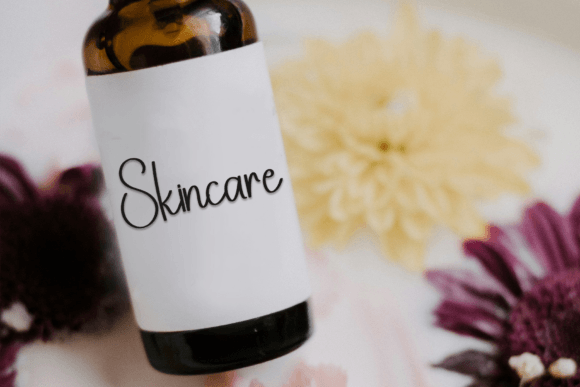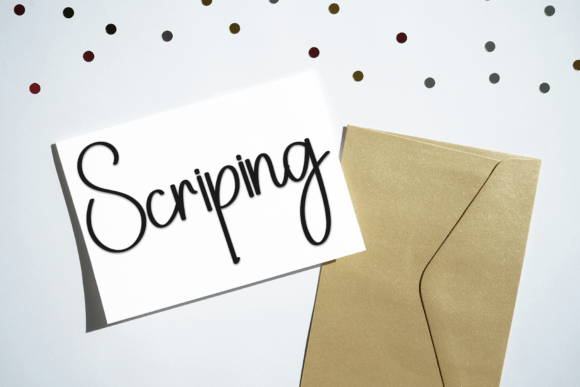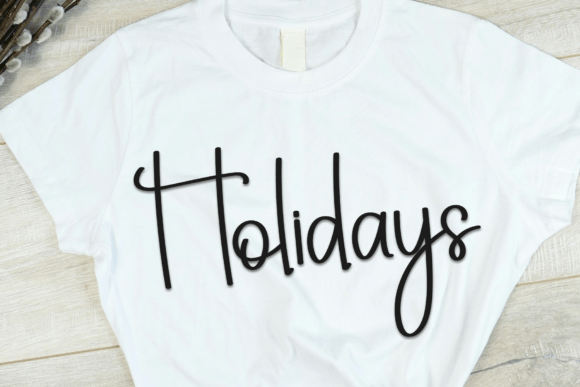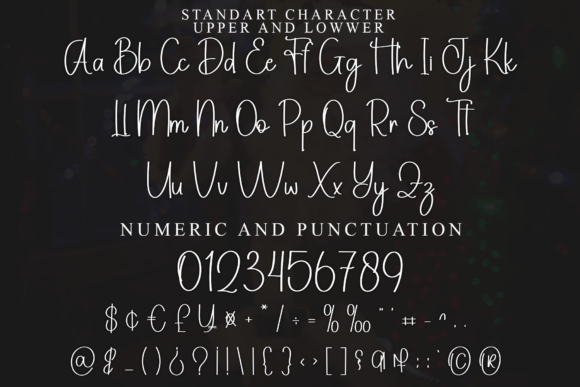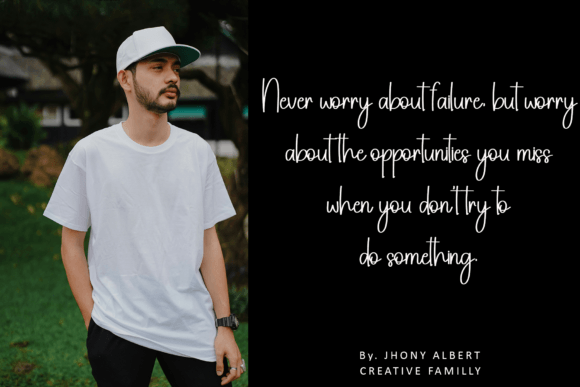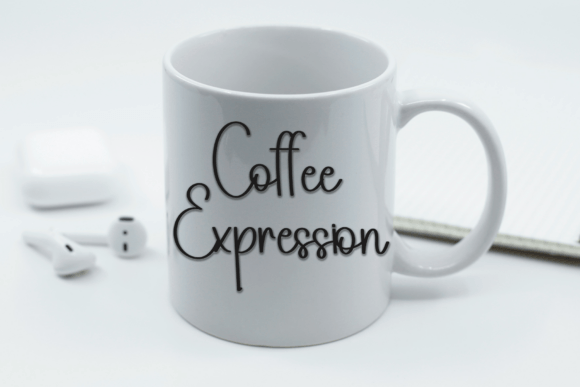
Introduction to Santa Clause Font
Santa Clause is a lovely and timeless handwritten font.
Key Features of Santa Clause Font
Why Choose Santa Clause Font?
Santa Clause Font offers exceptional quality and versatility, making it a valuable addition to your design toolkit. Whether you’re creating for personal projects or commercial use, Santa Clause Font delivers professional results.